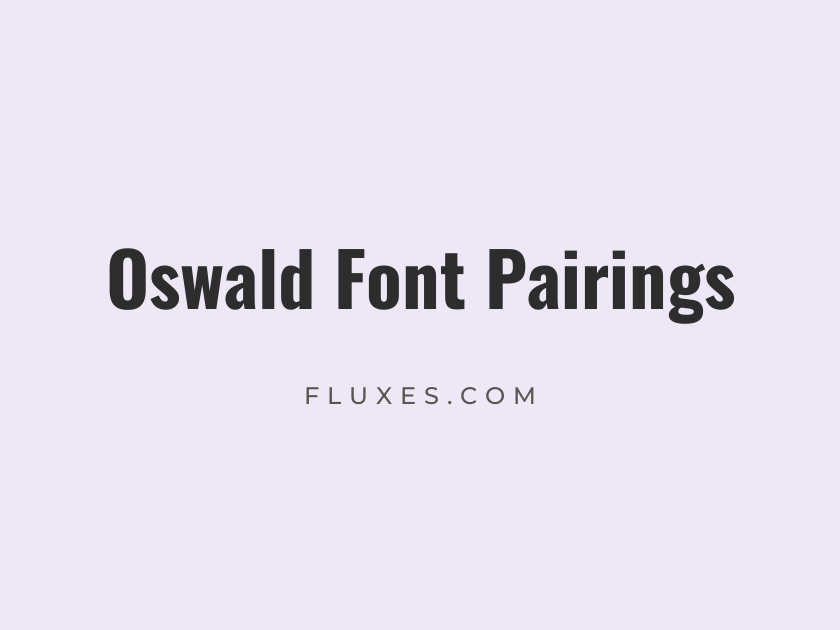
9 Best Font Pairings for Oswald
Oswald’s condensed, gothic-inspired proportions make it one of the most versatile display fonts on Google Fonts, but its narrow width and tall x-height mean it needs a body partner with enough breathing room to balance the page. The pairings below lean on that contrast, some pulling from warm serif text faces, others from neutral humanist sans fonts, to show how many directions a single font pairing built around Oswald can take.
Oswald + Merriweather
Bold Ideas Start Here
A serif body face with sturdy serifs and generous curves that grounds a condensed headline.
Oswald’s tight letterforms create punch and urgency, while Merriweather’s wide apertures and moderate contrast slow the eye down for paragraphs. This is a dependable choice for editorial sites and long-form articles where the headline needs to shout but the text still needs to read comfortably.
Oswald + Lato
Modern Headlines That Work
A humanist sans with rounded terminals that feels friendly and easy at smaller sizes.
Pairing two sans-serifs works here because Lato’s open counters and softer curves keep it from competing with Oswald’s angular, condensed structure. The result reads as clean and contemporary, a favorite combination for startup landing pages and product marketing.
Oswald + Noto Sans
Clarity In Every Line
A neutral, highly legible workhorse designed for interfaces and long passages of text.
Noto Sans was built for screens, so its restrained personality lets Oswald carry all the visual weight in a layout. This is a practical Google Fonts pairing for dashboards, documentation, and any interface where the heading needs presence but the body text has to disappear into pure readability.
Oswald + Lora
Stories Worth Telling
A calligraphic serif with subtle curves that brings warmth to narrative copy.
Lora’s brush-influenced curves contrast nicely against Oswald’s mechanical, condensed skeleton, giving a page a sense of handcraft alongside structure. It suits blogs, personal essays, and lifestyle brands that want a headline with edge but a body that feels approachable.
Oswald + PT Sans
Precision Meets Personality
A humanist sans with slightly squared shapes that pairs comfortably under tall condensed type.
Both fonts share Eastern European type traditions and a no-nonsense practicality, so they sit together without friction. This combination works well for civic, educational, or nonprofit sites that need to feel authoritative without becoming cold.
Oswald + Noto Serif
Read The Fine Print
A widely supported serif built for multilingual clarity and dependable readability.
Karla + Oswald
A grotesque-inspired sans with a slightly quirky personality and excellent screen legibility.
Elegant And Efficient
Crimson Text + Oswald
A book-style serif with old-style figures and refined proportions suited to long reading.
Everyday Design Solutions
Open Sans + Oswald
A neutral, widely used sans with generous spacing and consistent stroke weight.
Function Follows Form
Tips for pairing with Oswald
Keep Oswald for headlines, labels, and short bursts of text; its condensed width becomes fatiguing in long paragraphs.
Choose a body font with a larger x-height and open counters to counterbalance Oswald’s narrow letterforms.
When mixing two sans-serifs, look for a body face with softer curves so it does not compete with Oswald’s angular structure.